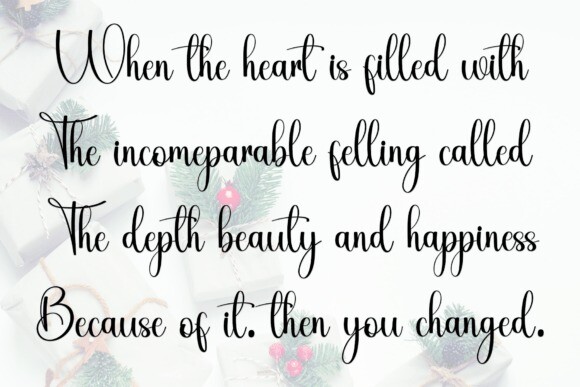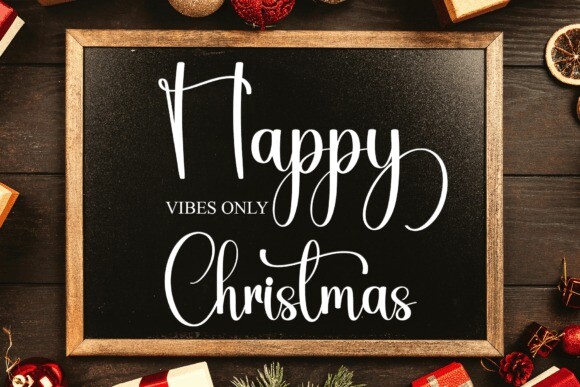
Christmas Homestay Font
Christmas Homestay Font is an exquisite handwritten font, masterfully designed to become a true favorite. It maintains its classy calligraphic influences while feeling contemporary and fresh. Fall in love with it and bring your projects to the highest levels!